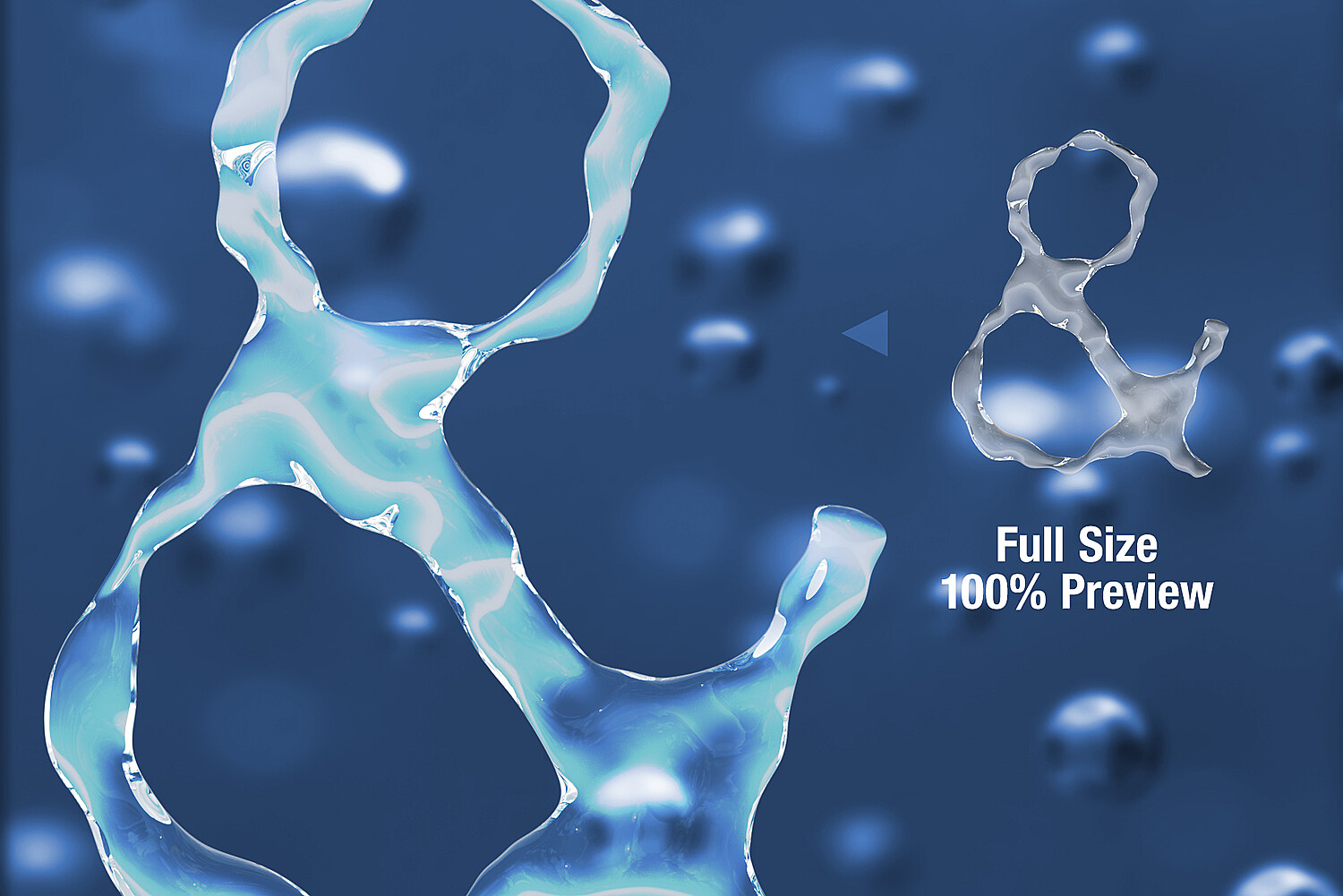
MS Liquid Font - Opentype SVG Color Font and PNG Files
Each letter is modelled and rendered in a 3D Application, also converted into an Opentype SVG (Color Font) - Basic western uppercase letters - Numbers - Extended Punctuation and Symbols - Clean Transparent PNGs (Up to 2048px) - The package contains 53 Separate PNGs and 1 OTF (OpenType SVG - Color Font) file.